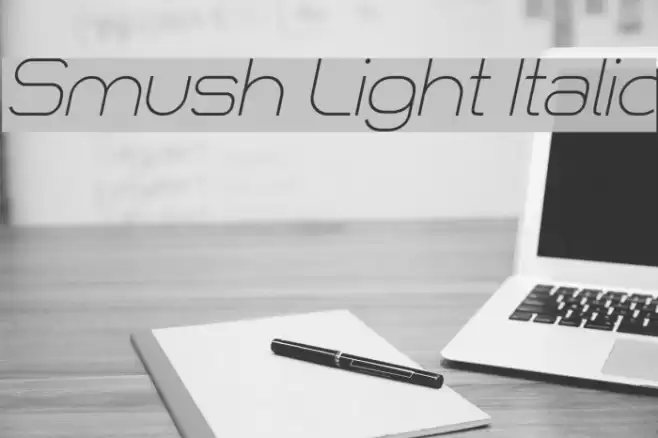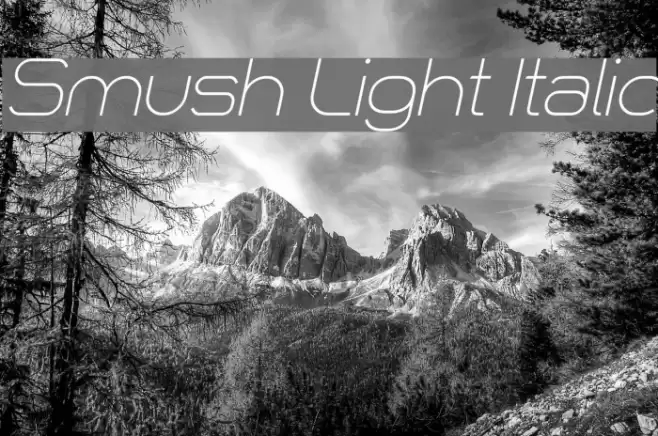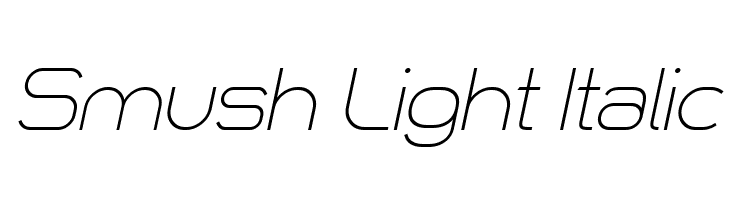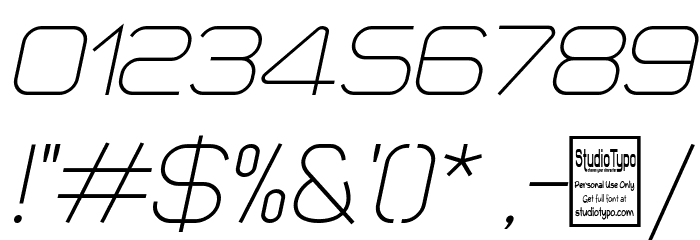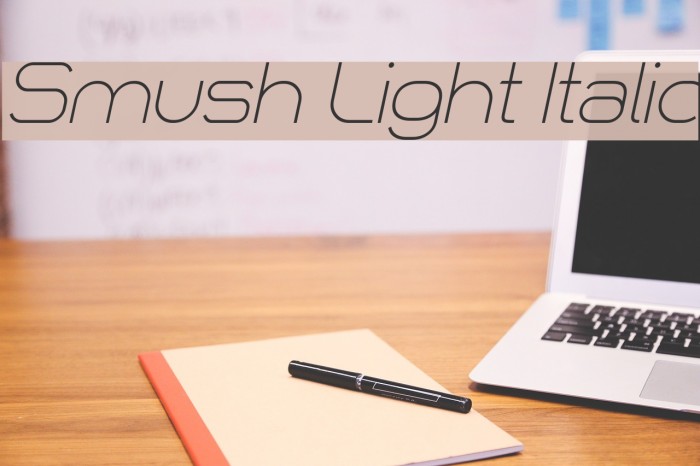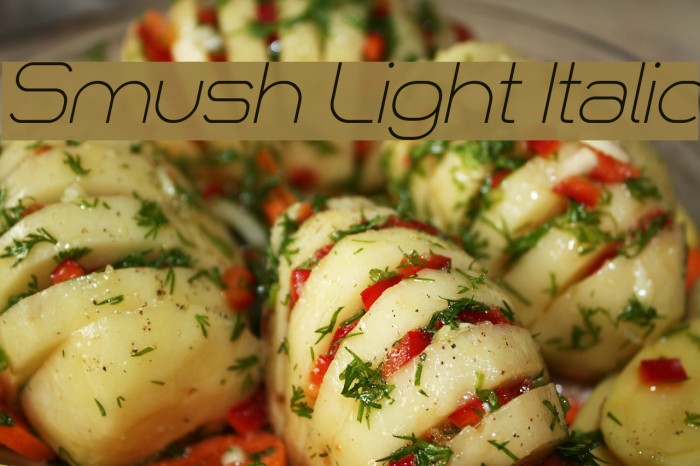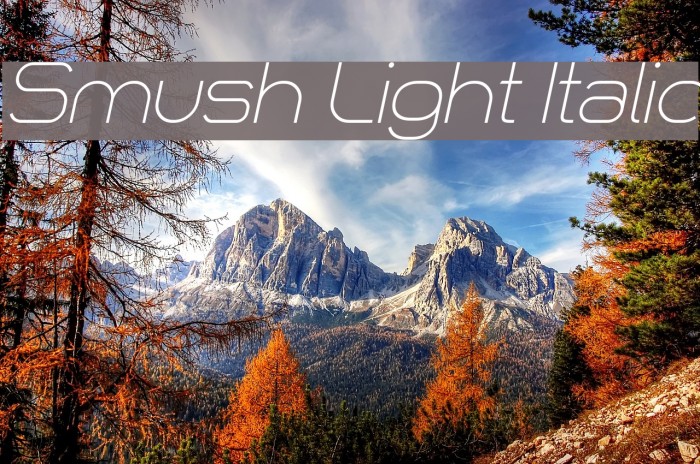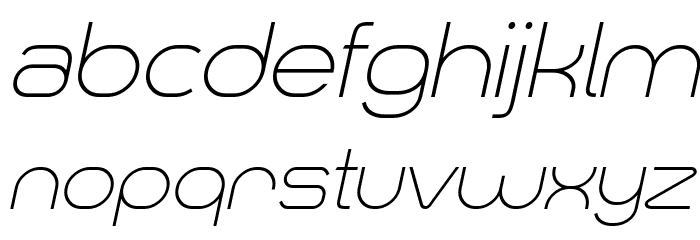
Smush Light Italic Font
Smush Light Italic Description
This typeface features a sleek and modern design with a light, airy feel. The characters are slightly italicized, giving them a dynamic and forward-leaning appearance. The strokes are thin and consistent, contributing to a clean and minimalist aesthetic. The rounded edges and smooth curves add a touch of elegance, while the geometric structure maintains a sense of precision and order. This font is well-suited for contemporary design projects that require a sophisticated yet approachable look. The spacing between characters is balanced, ensuring readability and visual harmony.
A sleek, modern, and slightly italicized typeface with thin strokes and a geometric structure from Uncategorized fonts.